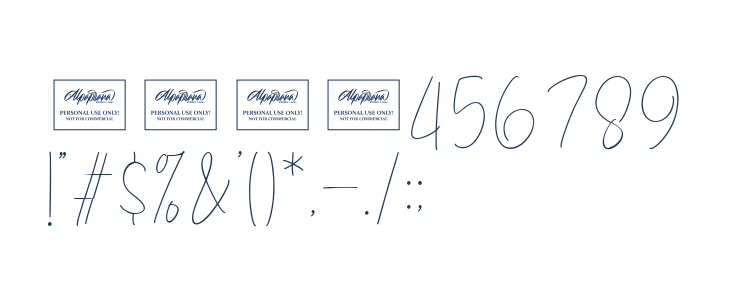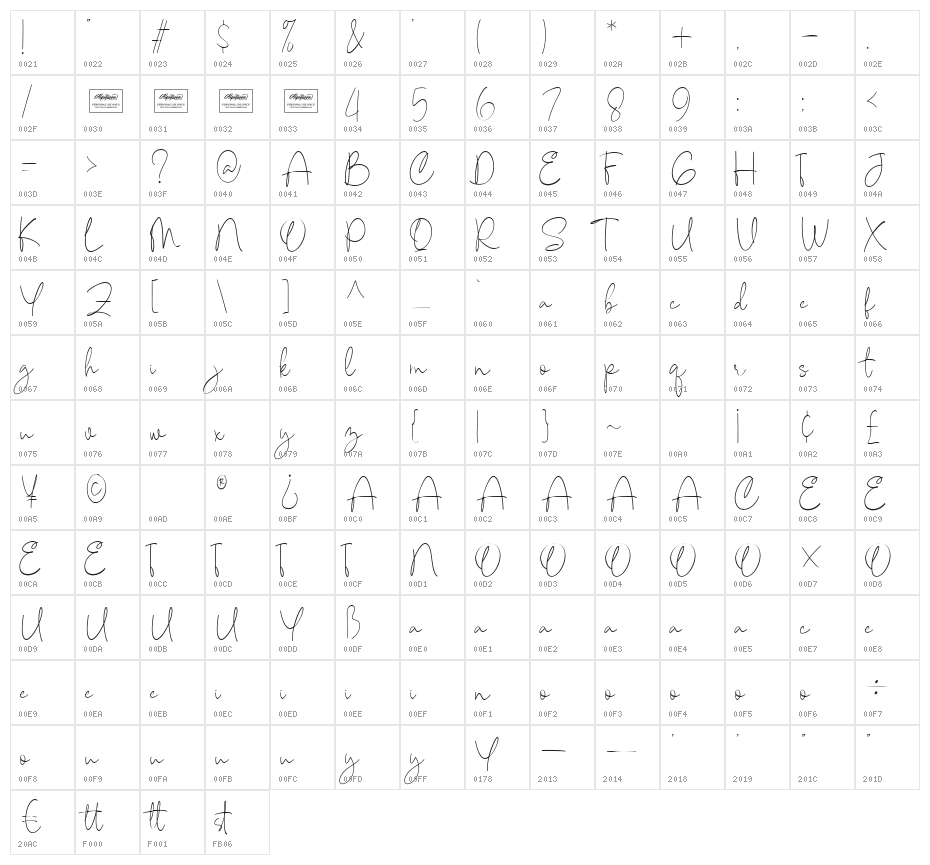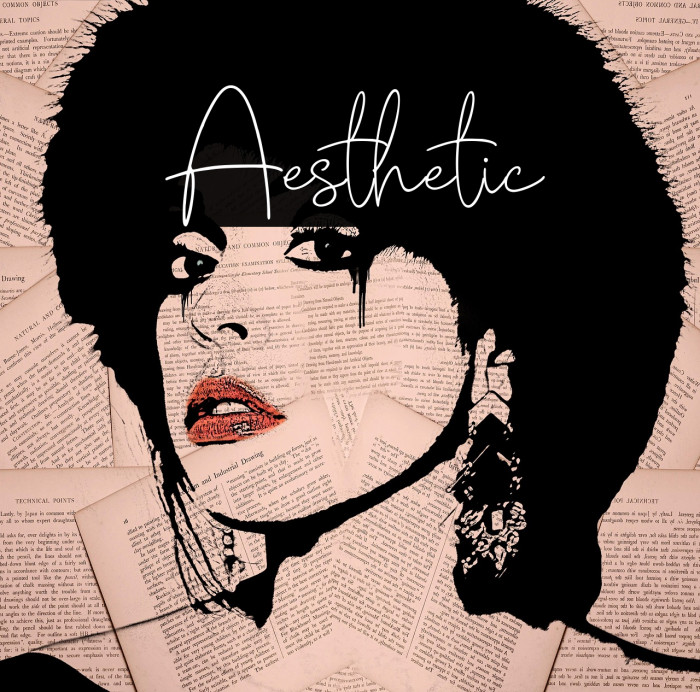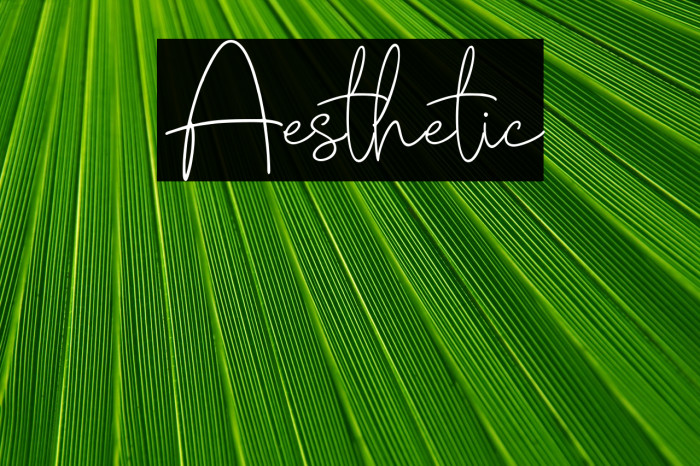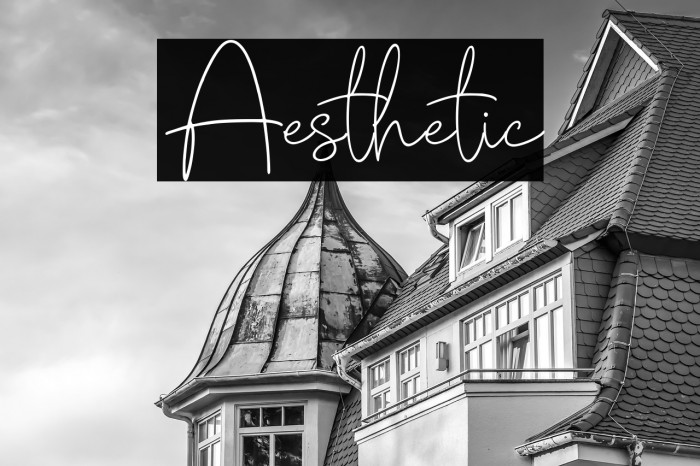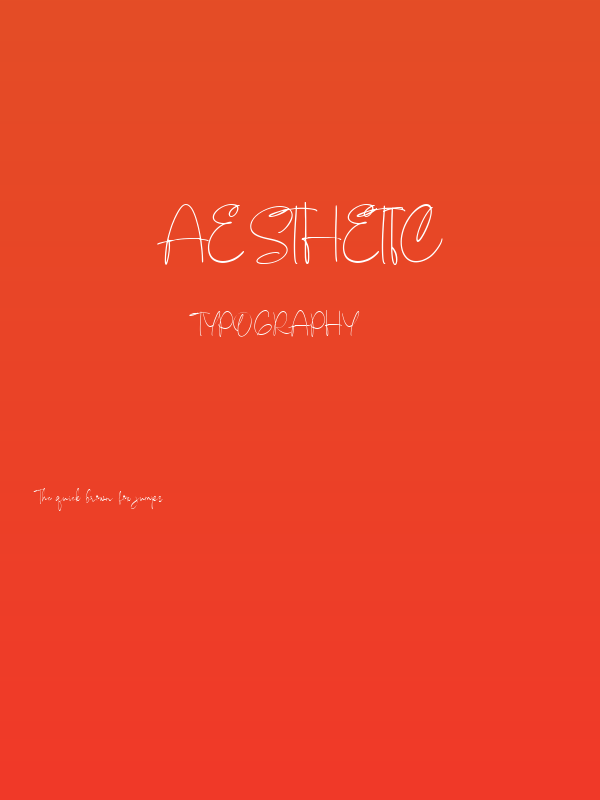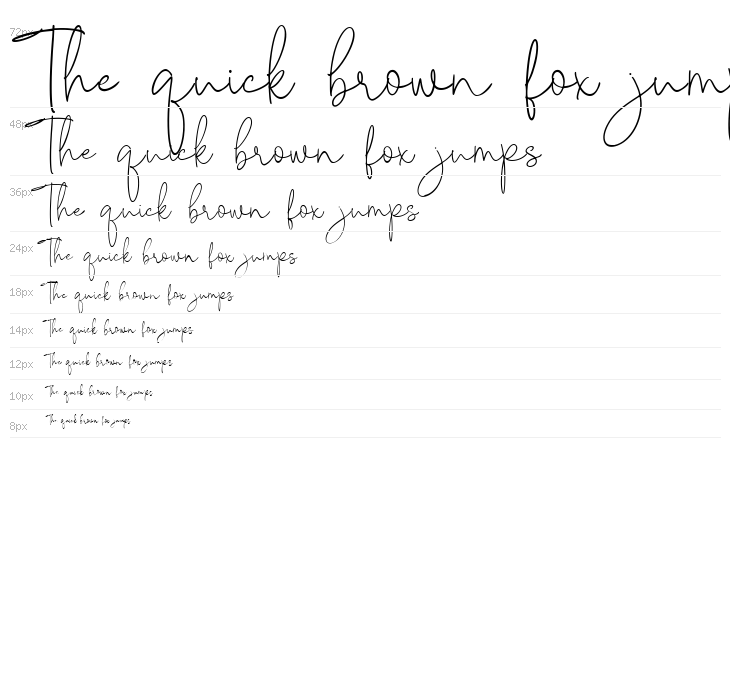
Aesthetic Font
Aesthetic Description
This font features a delicate and flowing script style, characterized by its elegant, handwritten appearance. The uppercase letters are tall and slender, with graceful loops and curves that give a sense of fluidity and movement. The lowercase letters maintain a consistent style, with smooth connections and a slightly more compact form. The numerals are similarly styled, with a playful yet sophisticated look. Special characters are integrated seamlessly, maintaining the overall aesthetic. This font exudes a sense of elegance and charm, making it suitable for projects that require a personal touch.
| Overall Style | Elegant, Handwritten |